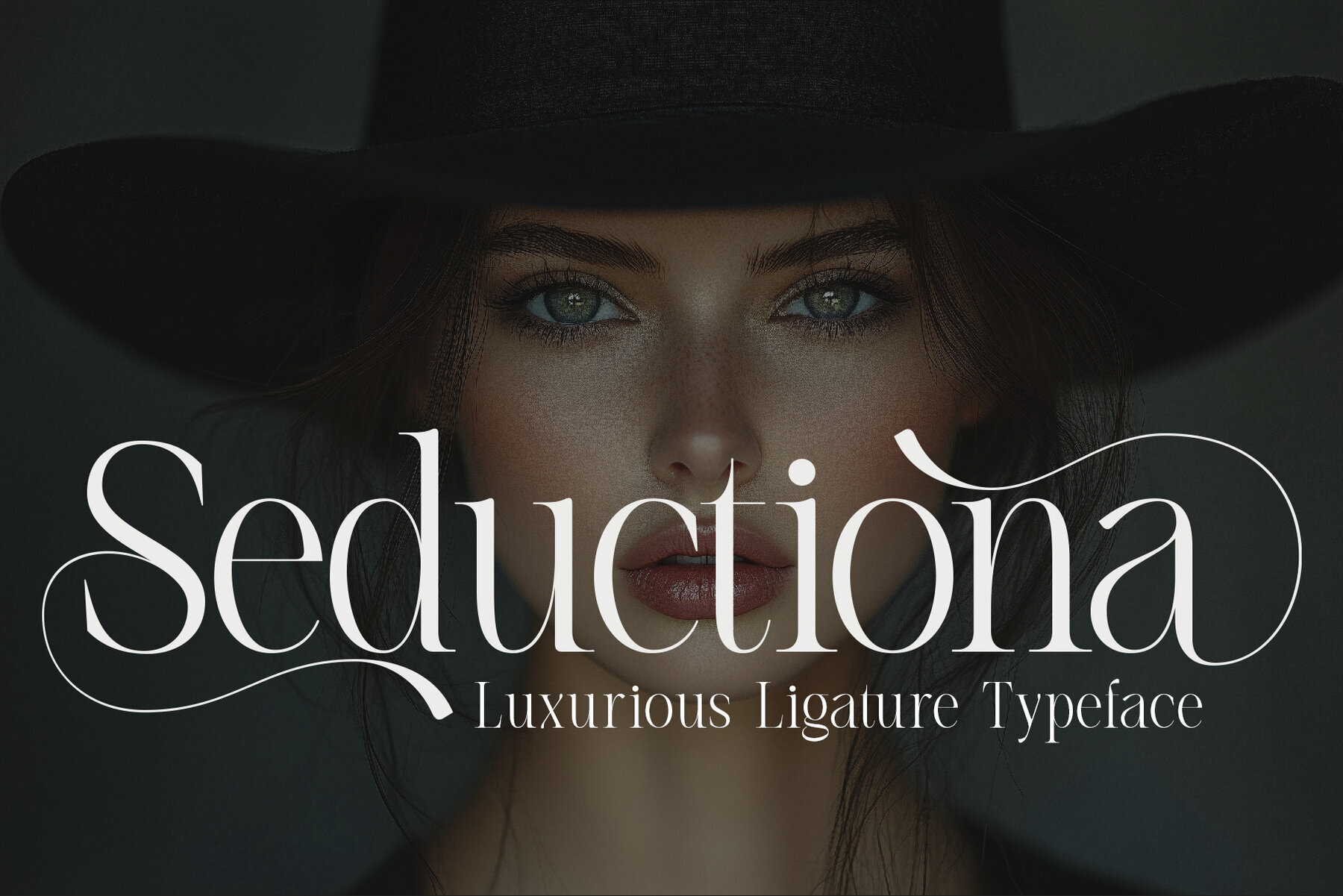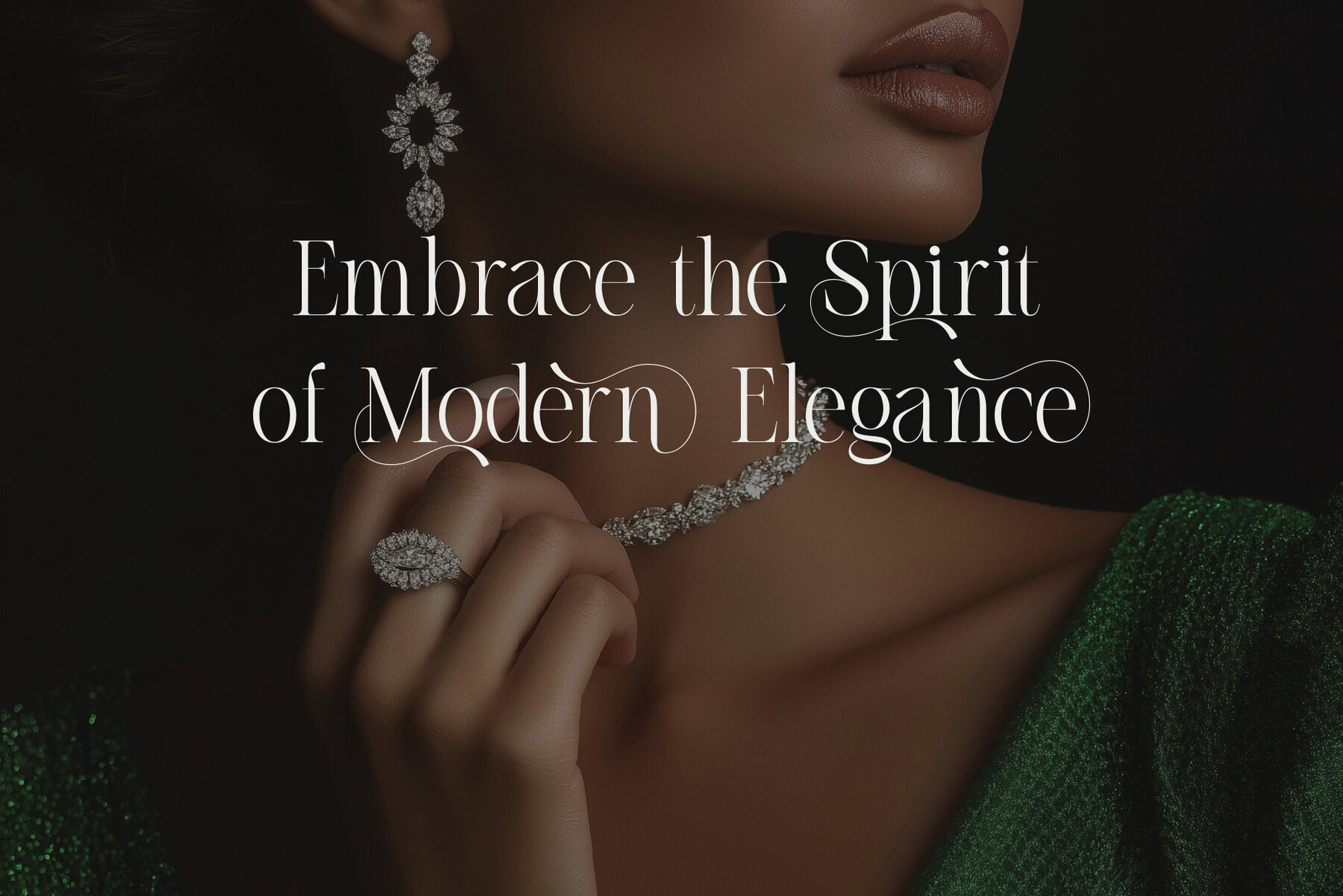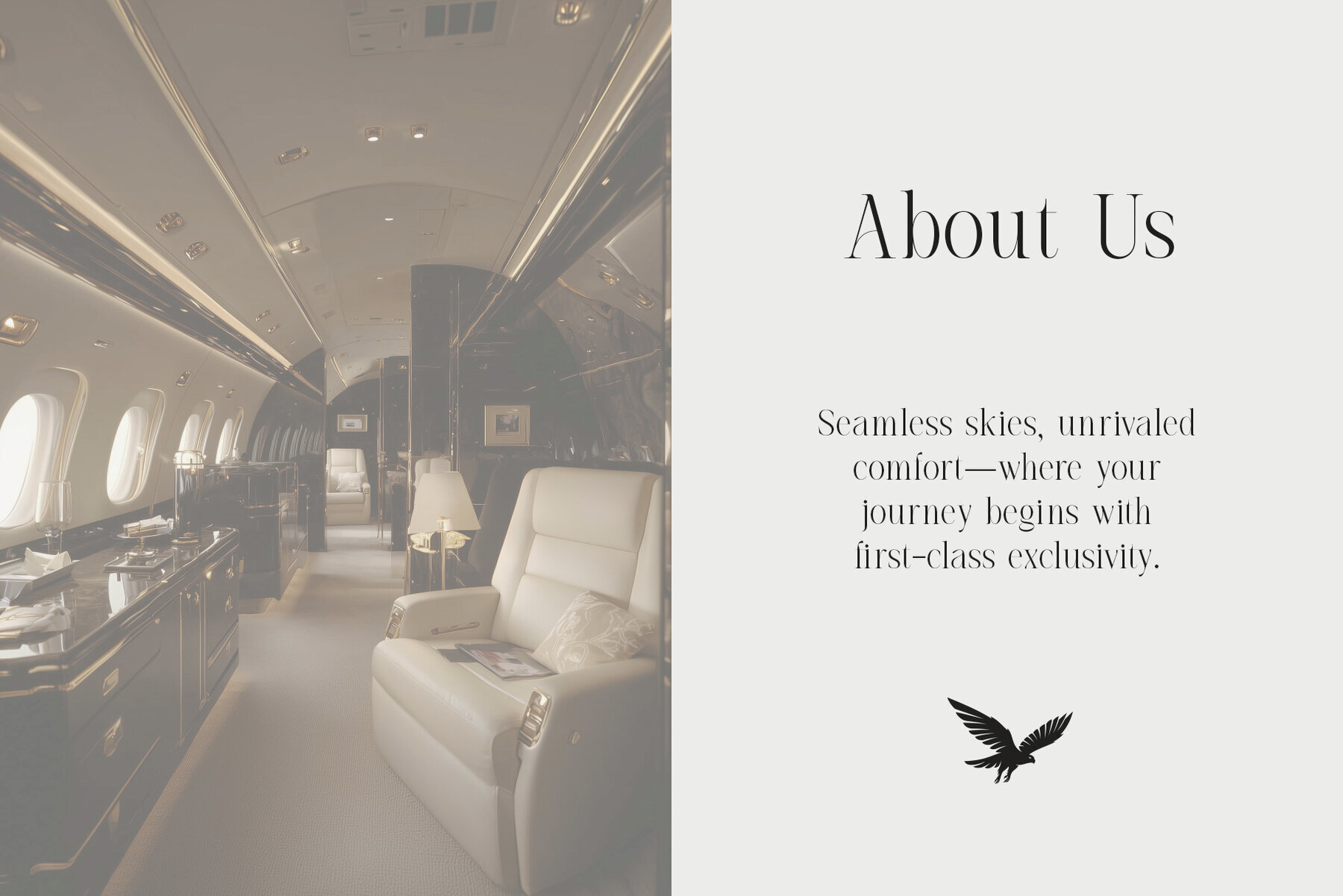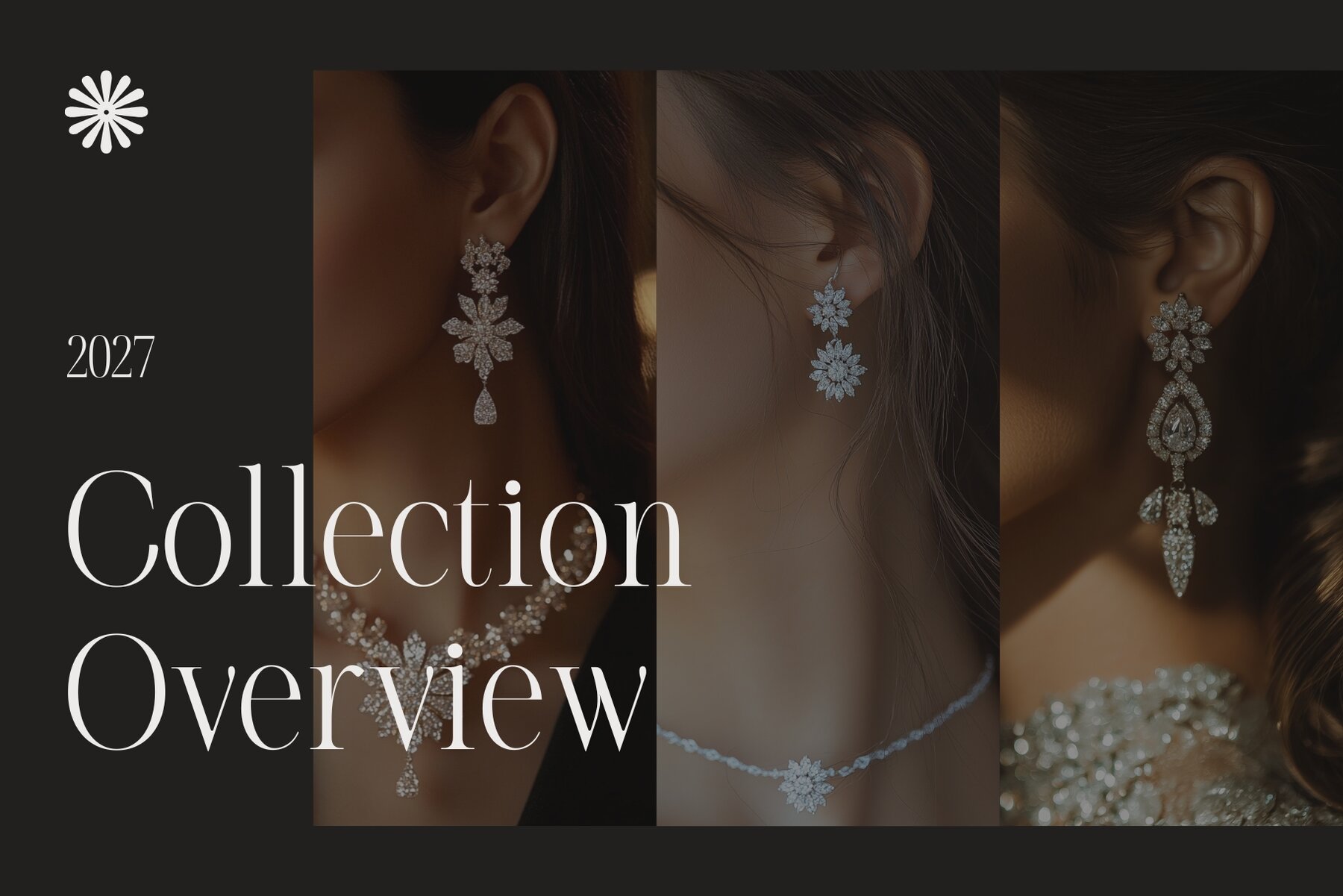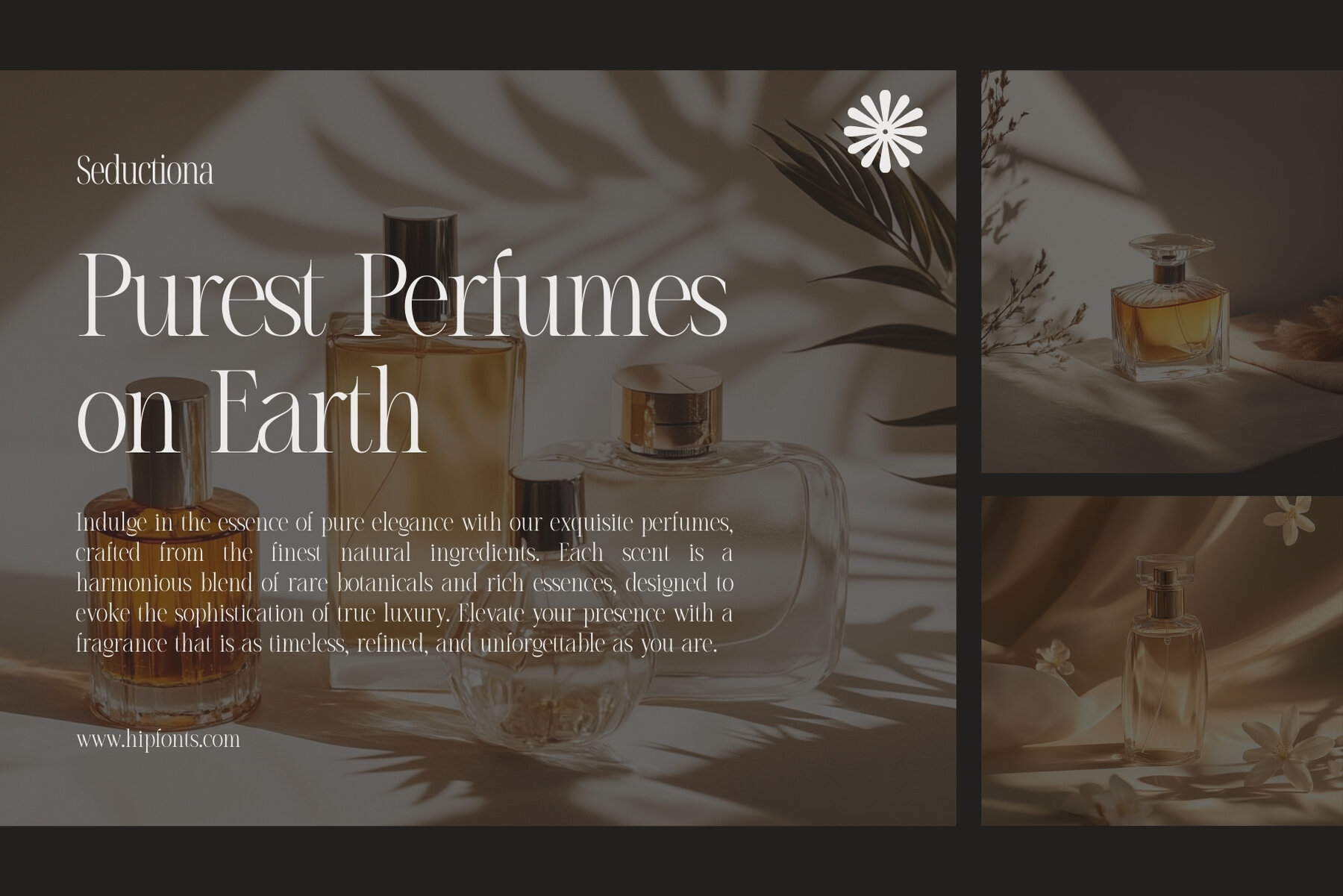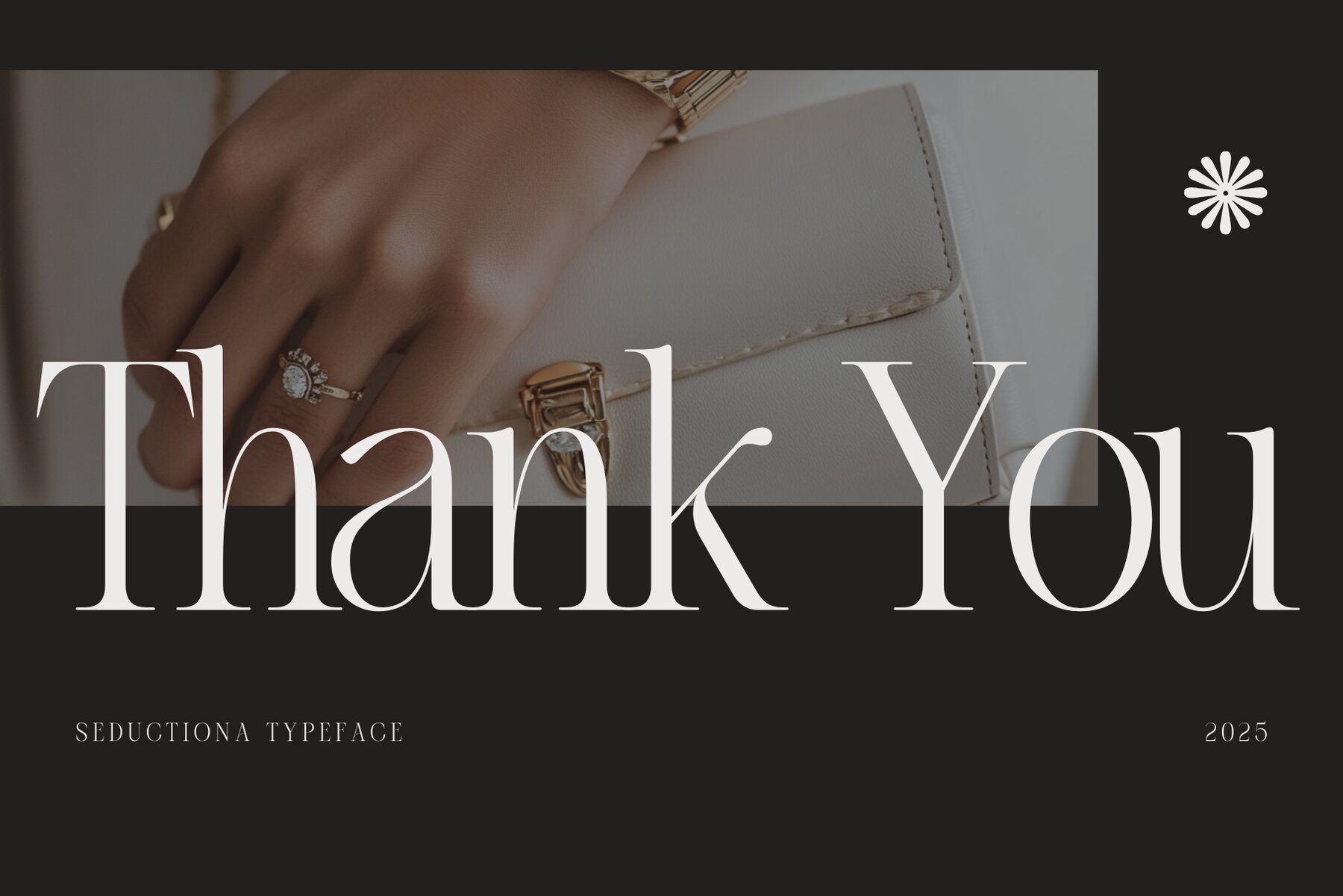
Seductiona Font
Seduktiona Regular
Seductiona is a luxury typeface designed to captivate the most discerning eyes. Featuring over 120 expertly crafted ligatures, its fluid strokes and graceful curves exude sophistication and artistry. This typeface is ideal for fashion magazines, wedding stationery, high-end branding, and luxurious packaging, offering a seamless blend of refinement and style. With Seductiona, every project becomes a statement piece. Whether you're designing a couture logo or an opulent wedding invitation, this typeface transforms every word into an artful masterpiece. Its versatility ensures that no two designs look alike, providing endless creative opportunities. For those who demand extraordinary design elements, Seductiona is essential. This typeface elevates typography, whispering elegance while commanding attention effortlessly. Don't miss out on the opportunity to redefine your design projects with Seductiona's unparalleled beauty.Seductiona Typeface: Elegance Redefined
Endless Creative Possibilities
A Must-Have for Designers